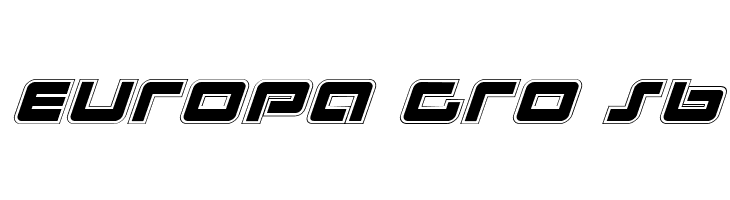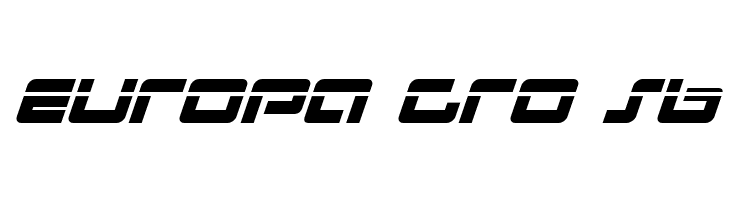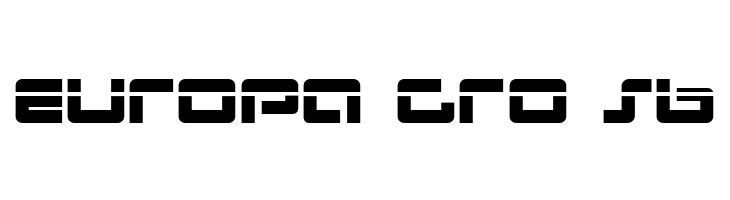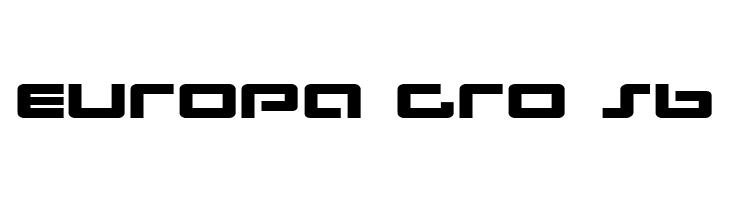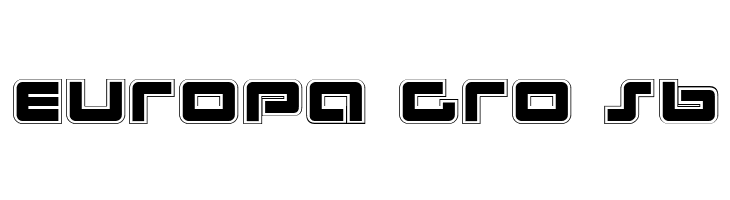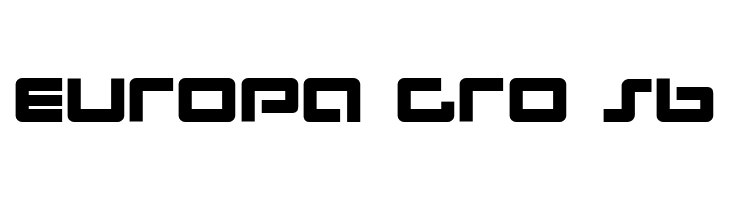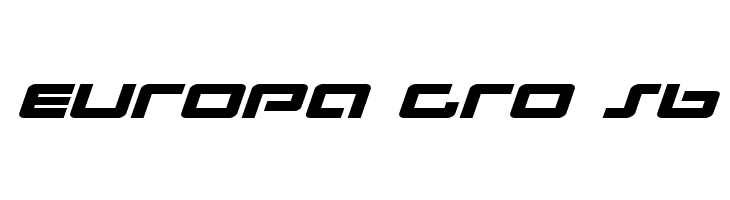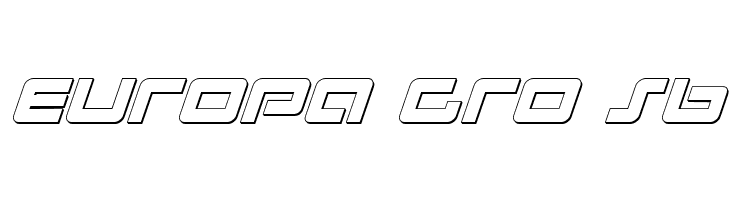
• Pulse Rifle Academy Italic
A bold, italic font with a futuristic and dynamic design.
• Pulse Rifle Laser Italic
A futuristic, bold, and italicized font with sharp, angular design.
• Pulse Rifle Laser
A futuristic, angular font with a bold, geometric style.
• Pulse Rifle Expanded
A futuristic, bold font with geometric and angular shapes, perfect for tech themes.
• Pulse Rifle Academy
A bold, futuristic font with geometric, outlined characters.
• Pulse Rifle
A bold, futuristic font with geometric and industrial design elements.
• Pulse Rifle Expanded Italic
A bold, expanded, and italicized futuristic font with a dynamic and modern design.
• Pulse Rifle 3D Italic
A futuristic, 3D italic font with geometric outlines and a dynamic, modern style.